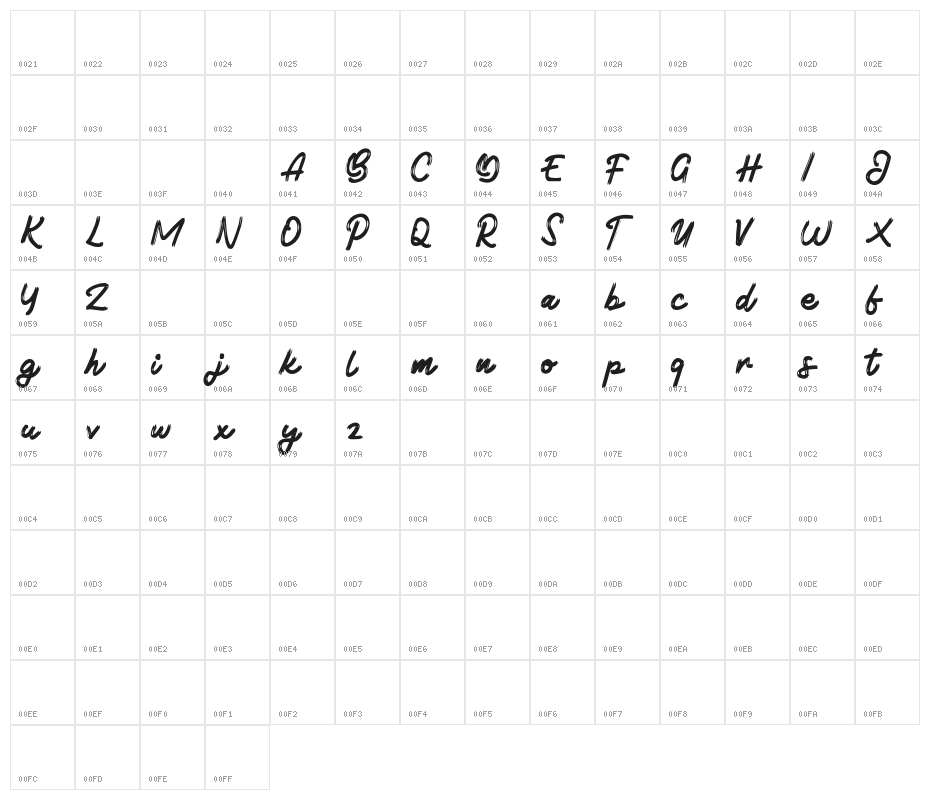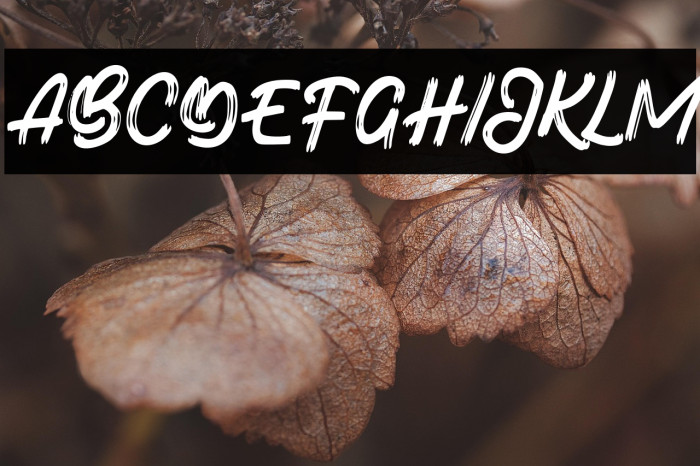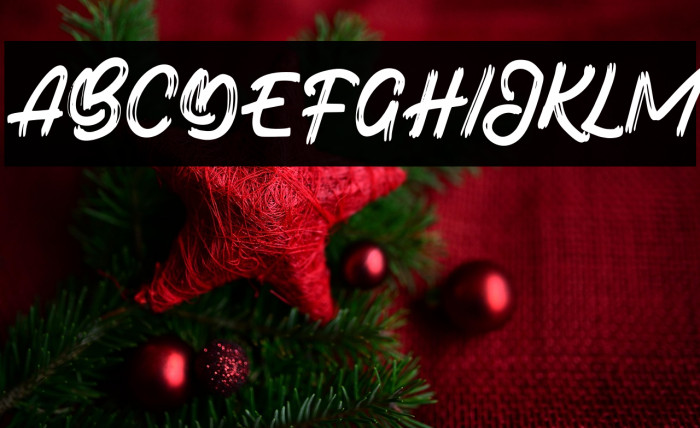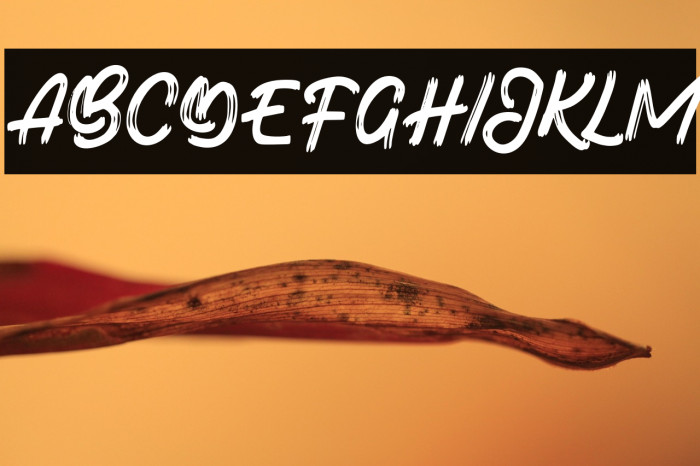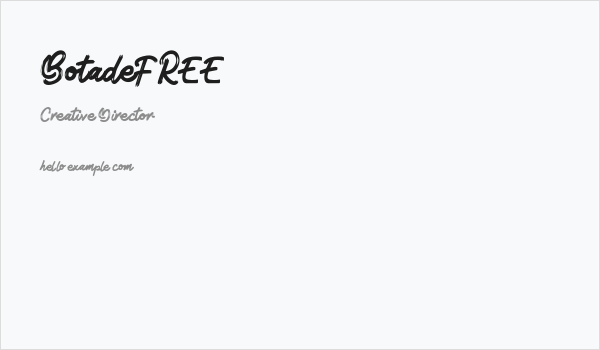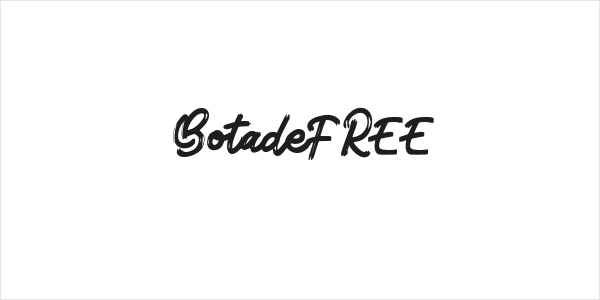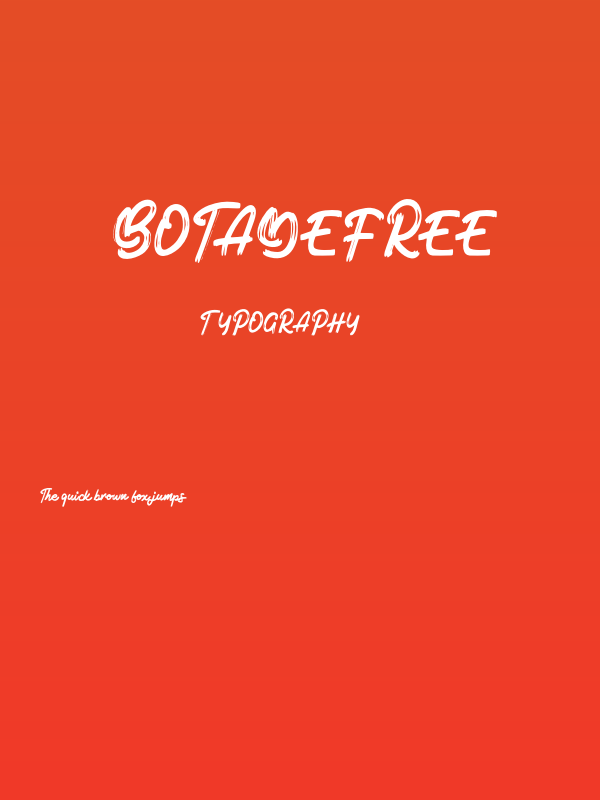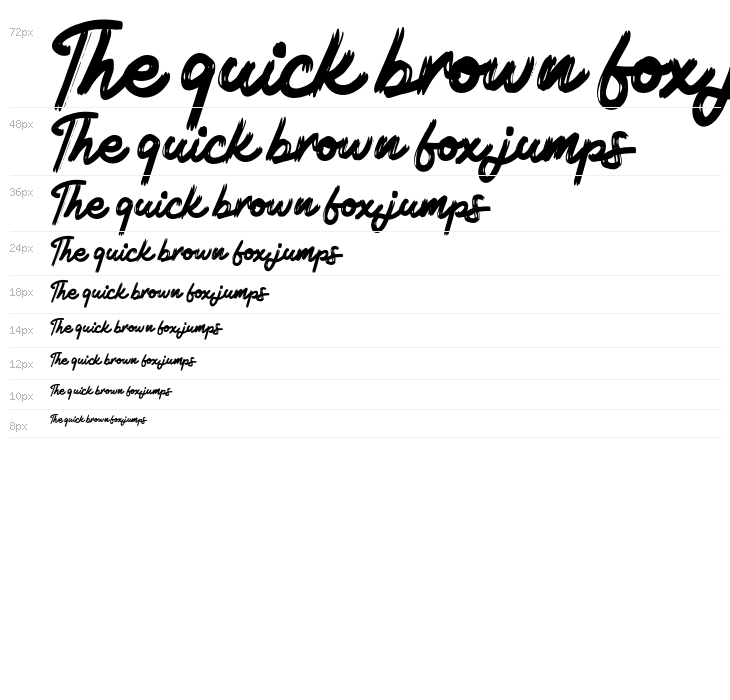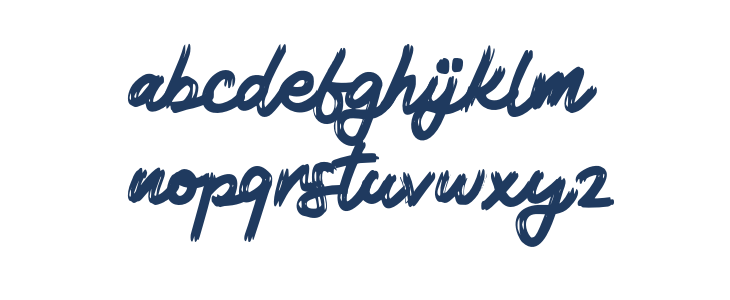
BotadeFREE Font
BotadeFREE Description
This font features a bold, energetic script style with a hand-drawn appearance. The strokes are thick and dynamic, giving each letter a sense of movement and flair. The uppercase letters are slightly more structured, while the lowercase letters flow more freely, enhancing the handwritten aesthetic. The characters are closely spaced, creating a cohesive and compact look. The font's brush-like texture adds a raw, artistic feel, making it stand out in any design. Its unique style is perfect for projects that require a personal touch or a bold statement.
Proposed ProjectsIdeal for branding, posters, invitations, and any design needing a personal, artistic touch.